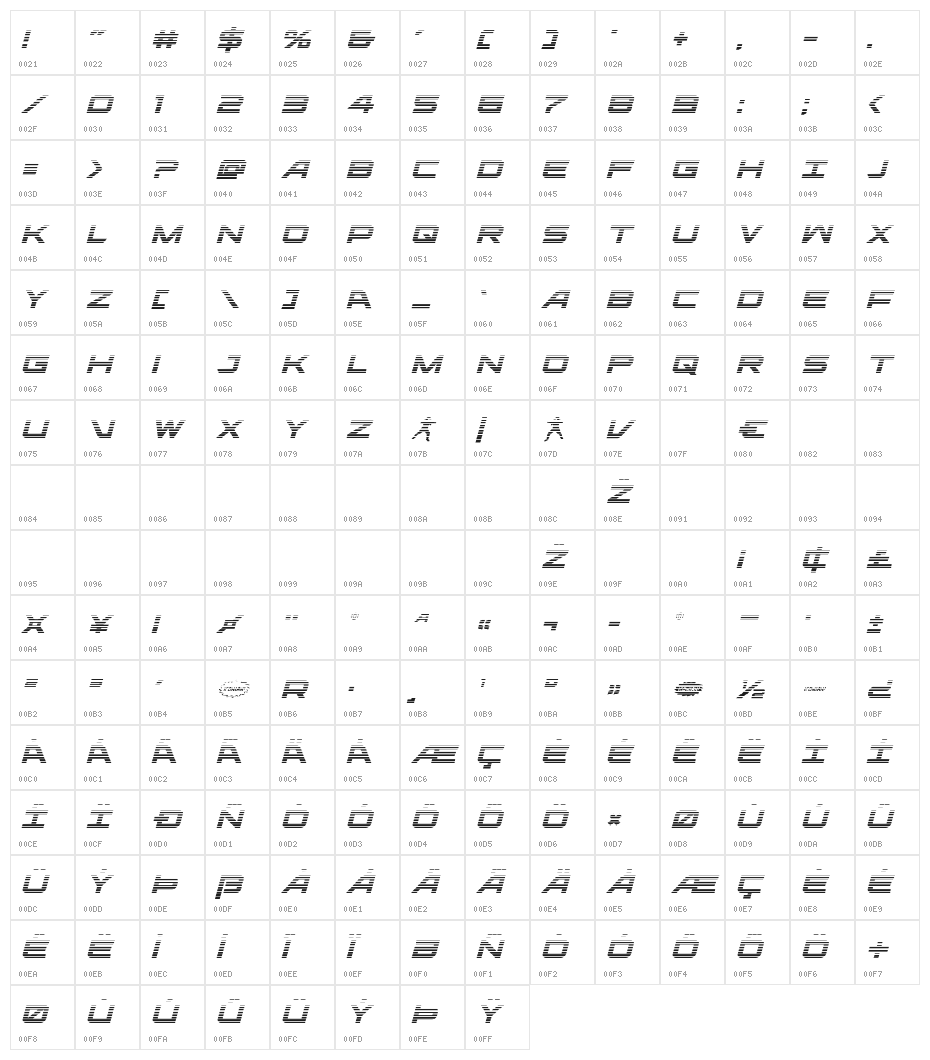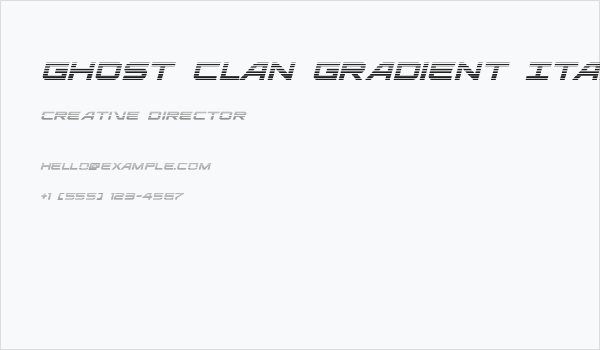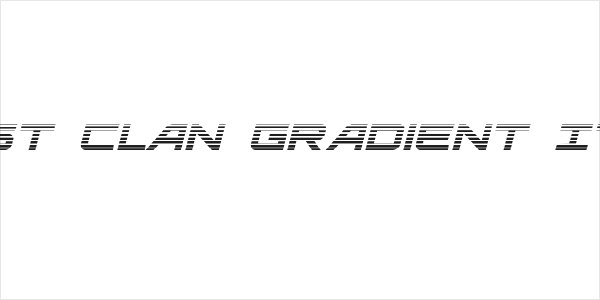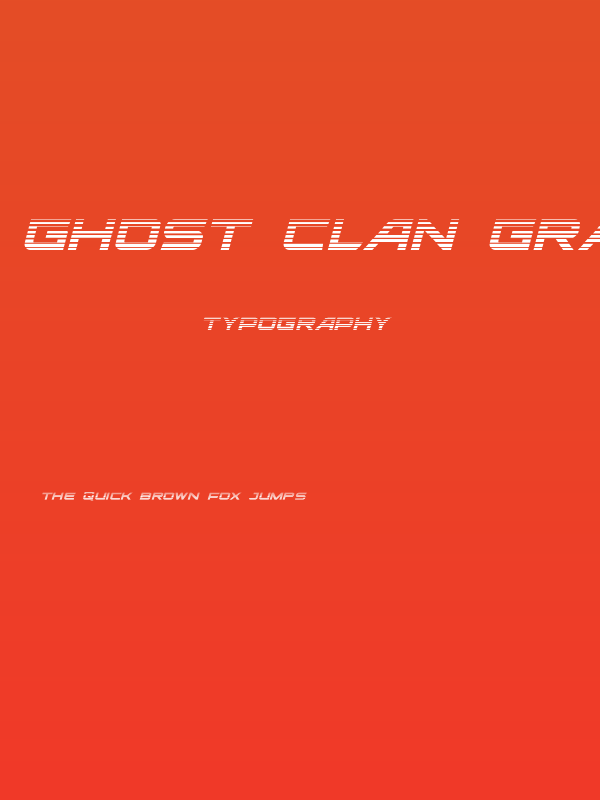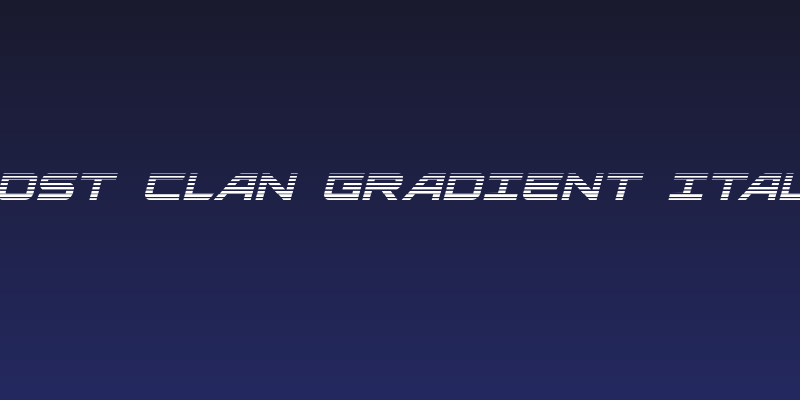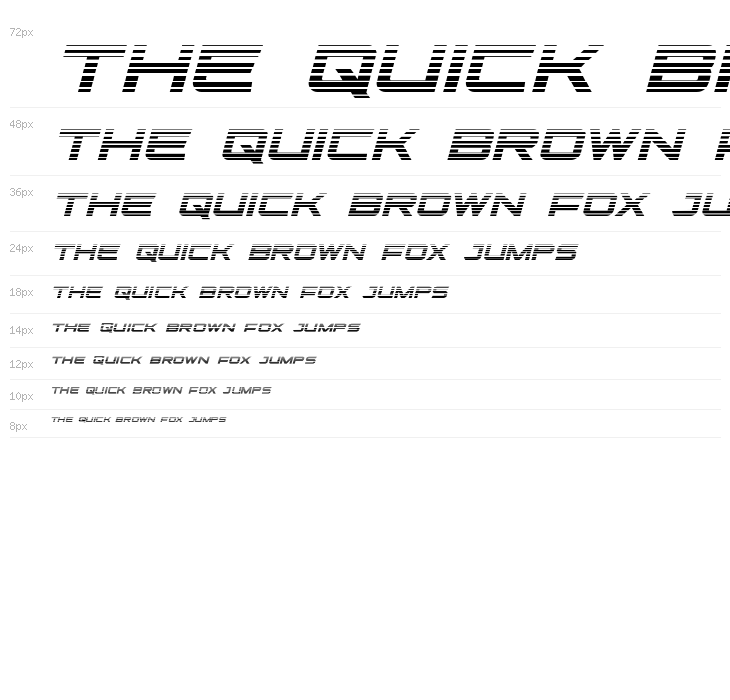
Ghost Clan Gradient Italic Font
Ghost Clan Gradient Italic Description
This font features a futuristic and dynamic design with a distinct gradient effect created by horizontal lines running through each character. The italicized style adds a sense of motion and speed, making it ideal for projects that require a modern and edgy look. The uppercase and lowercase letters maintain a consistent width, while the numbers and special characters are designed to complement the overall aesthetic. The font's unique appearance is suitable for creative and innovative designs, capturing attention with its bold and striking presentation.
Proposed ProjectsIdeal for tech-related branding, sports team logos, video game titles, and futuristic-themed posters.